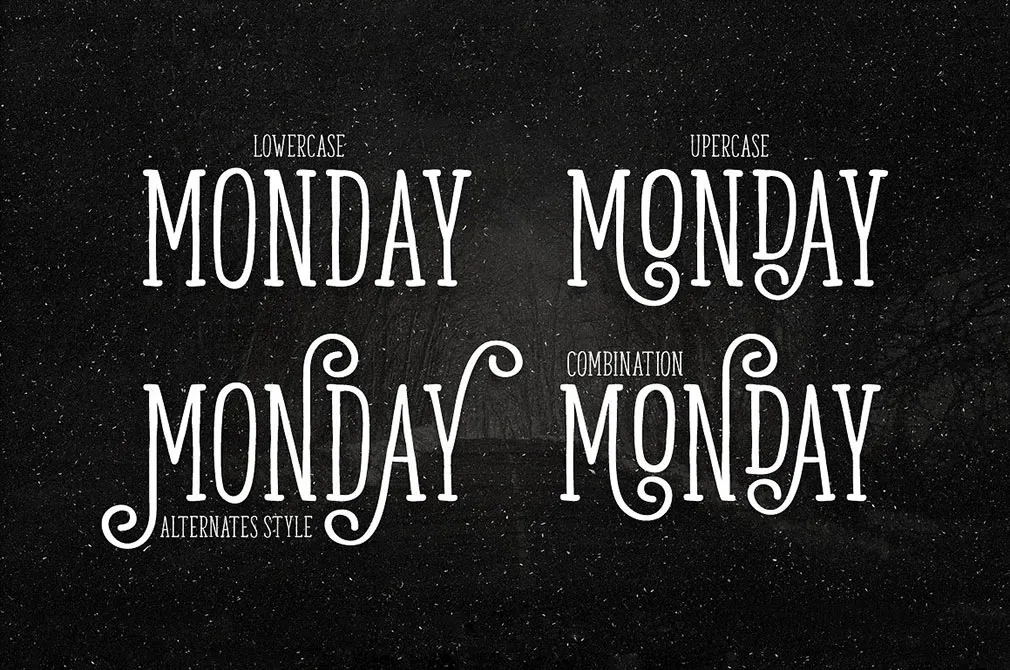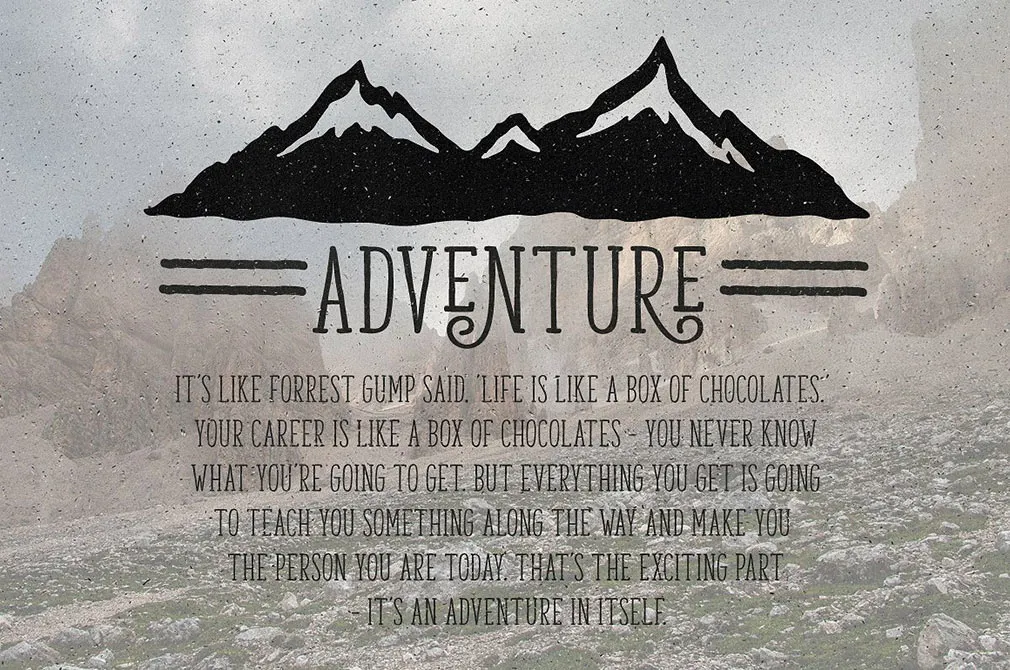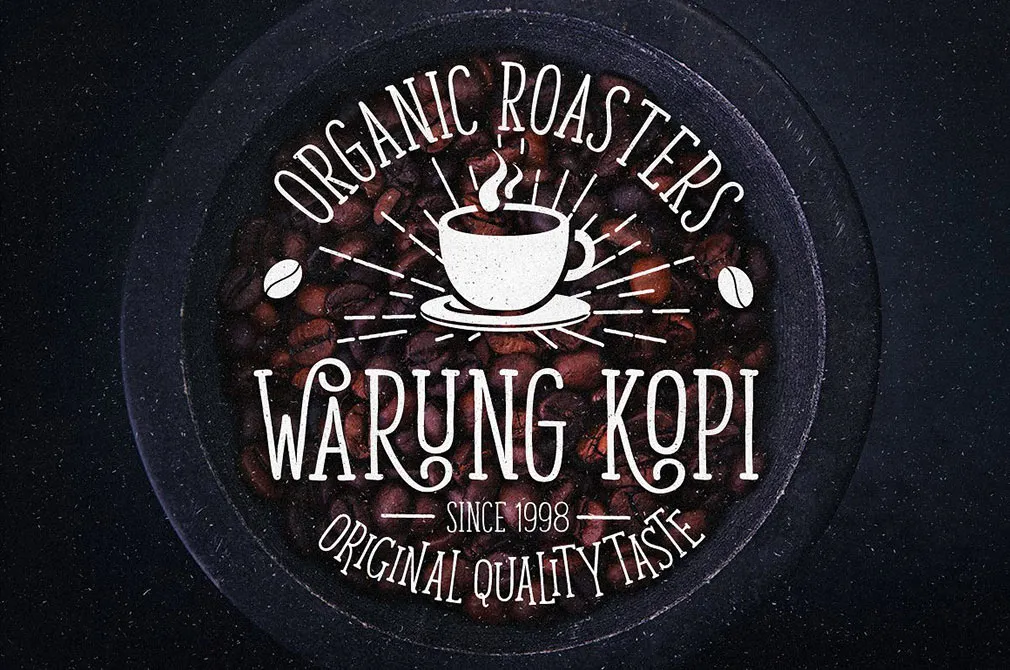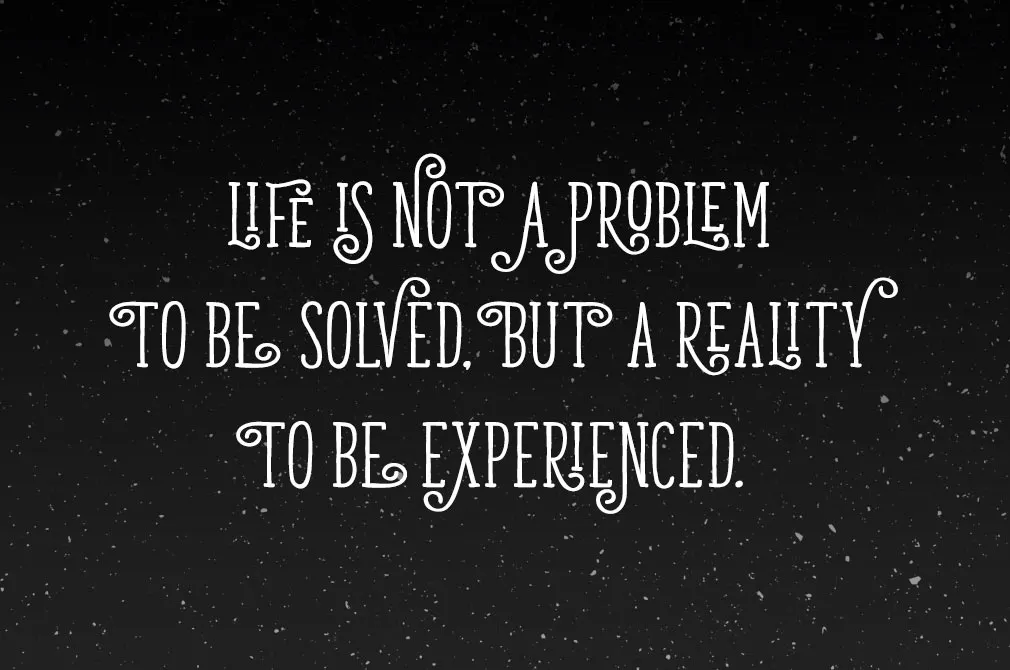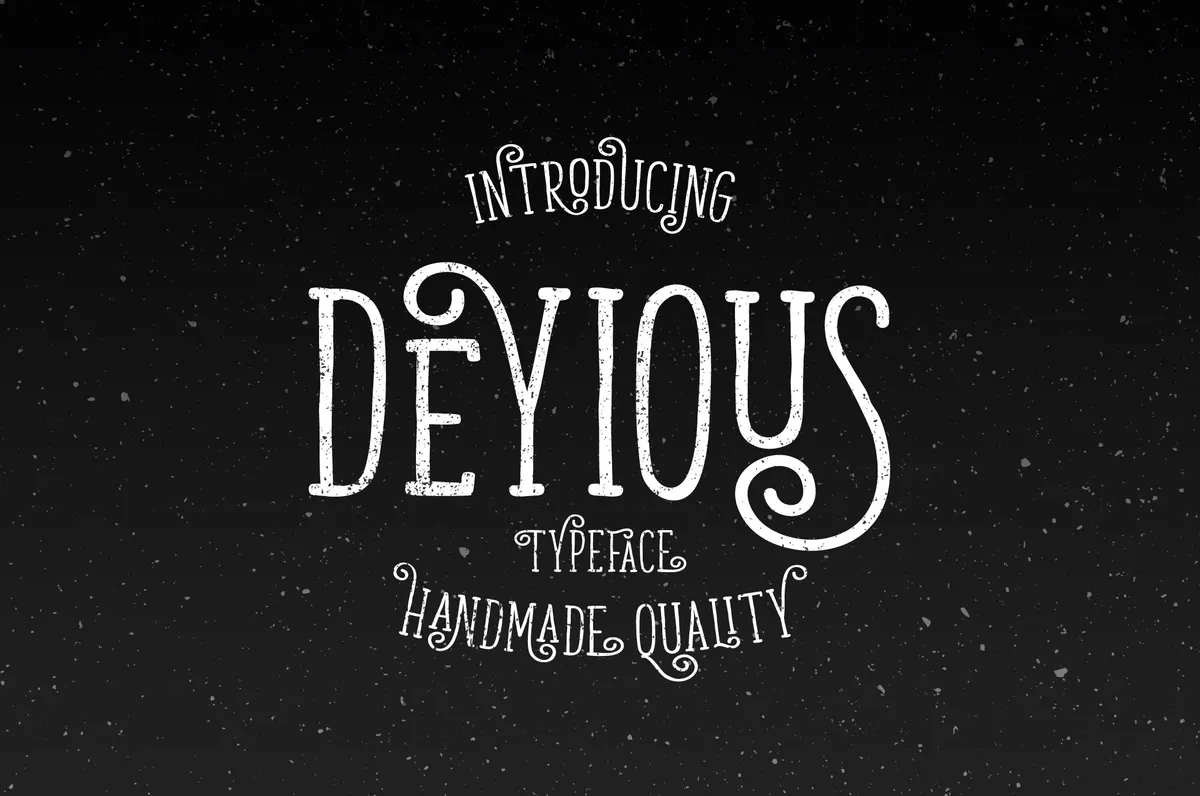
Devious Typeface
Today we're happy to bring you Devious Typeface, a new font with a simple, minimalistic, retro and vintage feel. It's full of alternative characters available via Open Type features.
Take a closer look at every element of this typeface, what do you see? Detailed characters? Thoroughly-made textures? Mystical forms? All of it! Use this font for greeting cards, posters, labels, and t-shirt designs we're sure your creations will beam with creativity and freshness!